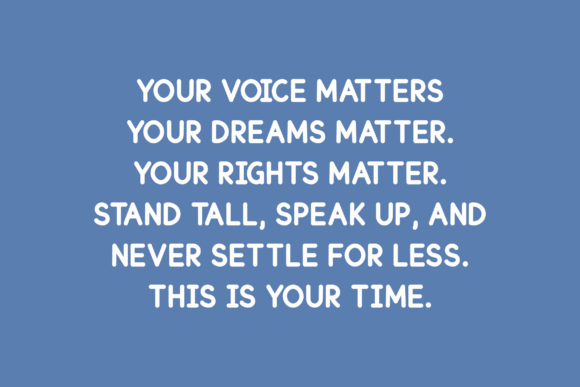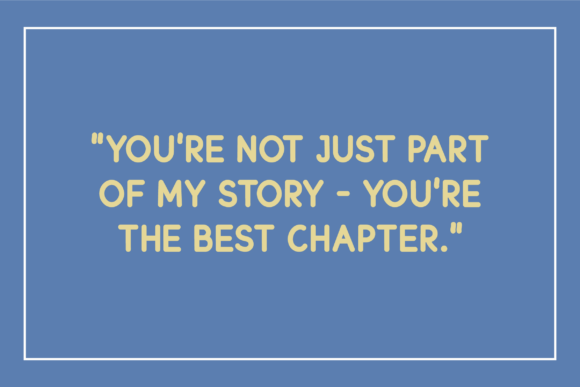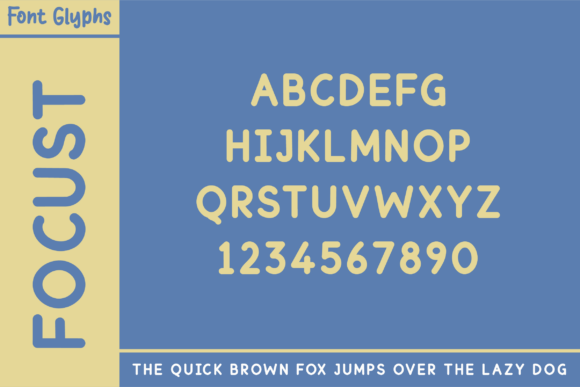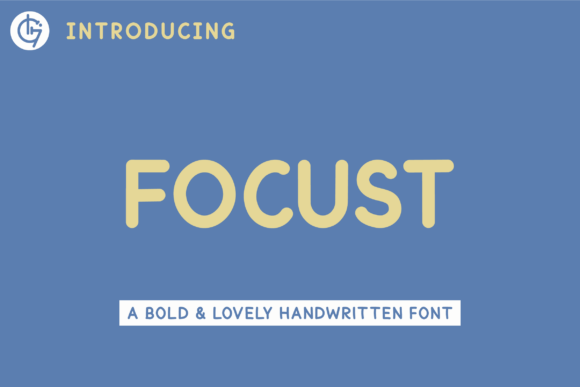
Introducing Focust Font: The Quirky All-Caps Font for Creative Projects
Are you a designer, crafter, or DIY enthusiast looking for a unique and versatile font to elevate your projects? Look no further than Focust Font, a quirky all-caps font that’s perfect for social media, crafting, and a wide range of creative applications.
What is Focust Font?
Focust Font is a carefully crafted font consisting of capital letters A-Z, numbers 0-9, accented characters, and punctuation. This comprehensive set of characters makes it an ideal choice for a variety of projects, from simple crafts to complex designs.
Key Features of Focust Font
- All-Caps Design: Focust Font features a bold, all-caps design that’s perfect for making a statement.
- Comprehensive Character Set: The font includes a wide range of characters, including capital letters A-Z, numbers 0-9, accented characters, and punctuation.
- Simple and Smooth: Focust Font’s smooth lines and simple design make it perfect for crafting, t-shirts, decals, cards, invitations, and more.
Focust Font is an incredibly versatile font that can be used for a wide range of creative projects. Here are some ideas to get you started:
- Social Media Graphics: Use Focust Font to create eye-catching social media graphics, including Facebook posts, Instagram captions, and Twitter headers.
- T-Shirts and Apparel: Add a personal touch to your t-shirts, hoodies, and other apparel with Focust Font.
- Decals and Stickers: Create custom decals and stickers with Focust Font for your laptop, water bottle, or any other surface.
- Crafting and Scrapbooking: Use Focust Font to add a personal touch to your crafting and scrapbooking projects, including cards, invitations, and journal pages.
Why Choose Focust Font?
With so many fonts available, why choose Focust Font? Here are just a few reasons why designers and crafters love this quirky all-caps font:
- Unique Design: Focust Font’s bold, all-caps design makes it stand out from the crowd.
- Ease of Use: The font is simple to use and pairs well with a wide range of other fonts.
- High-Quality Design: Focust Font is designed with high-quality craftsmanship in mind, ensuring that your projects look professional and polished.
Tips for Using Focust Font
Here are a few tips for getting the most out of Focust Font:
- Experiment with Colors: Try pairing Focust Font with a range of colors to add depth and interest to your designs.
- Mix and Match Fonts: Combine Focust Font with other fonts to create unique and eye-catching designs.
- Play with Sizes: Experiment with different font sizes to add visual interest to your designs.
Focust Font is a quirky all-caps font that’s perfect for designers, crafters, and DIY enthusiasts. With its comprehensive character set, simple and smooth design, and high-quality craftsmanship, this font is ideal for a wide range of creative projects. Whether you’re creating social media graphics, t-shirts, decals, or crafting projects, Focust Font is sure to become a favorite in your design arsenal.